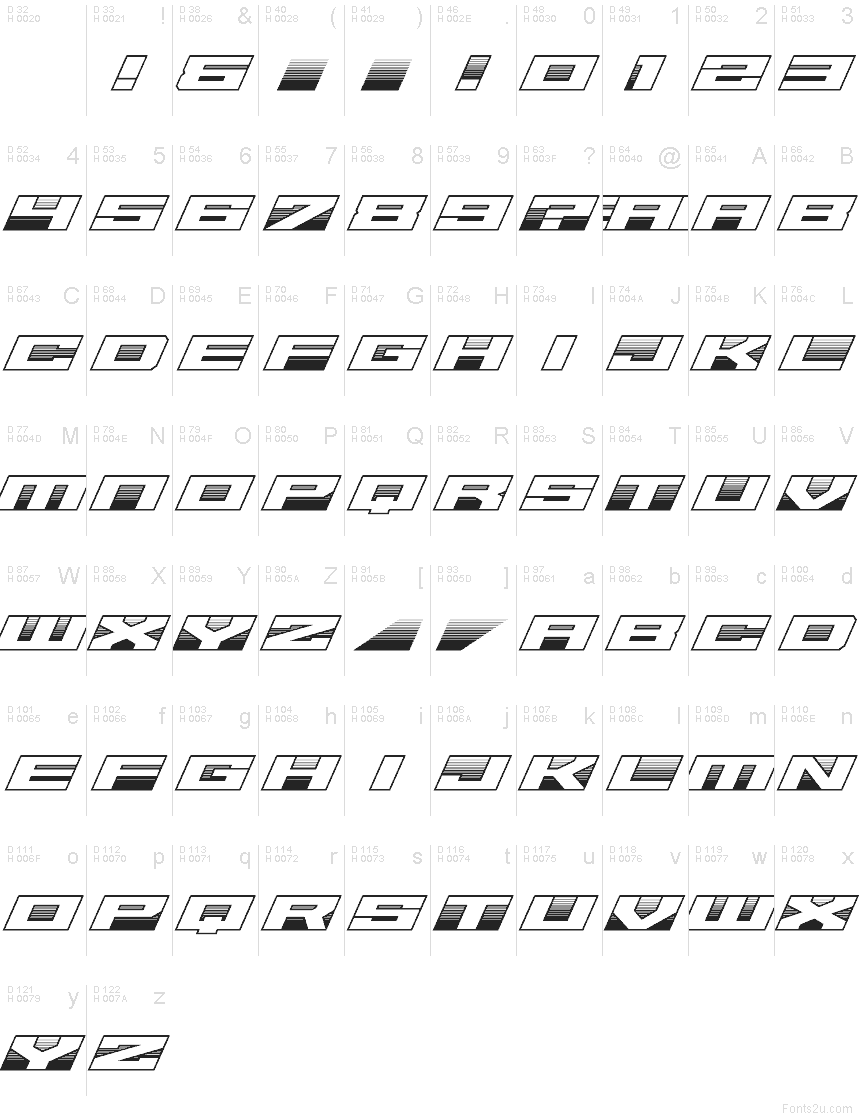
Gear6-Whitegrad
Gear6 Whitegrad font by Youssef Habchi is a free outlined techno racing display font. Built for motion, it leans hard forward with blade‑cut angles and speed‑stripes that read like air slits across the letters. The hollow forms keep it light and aerodynamic, so headlines feel fast without turning bulky. Part of the Gear6 family, it delivers crisp, track‑ready energy the moment it hits the page.